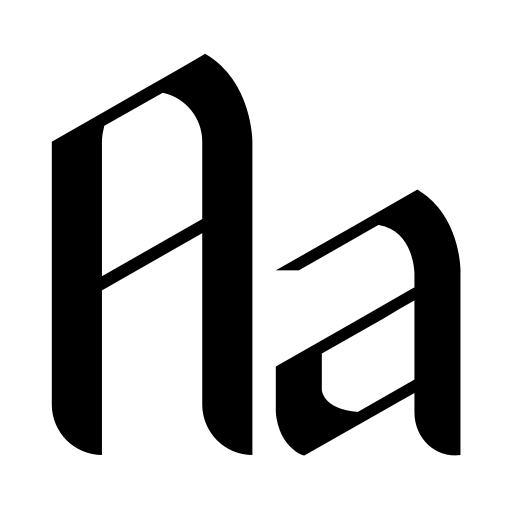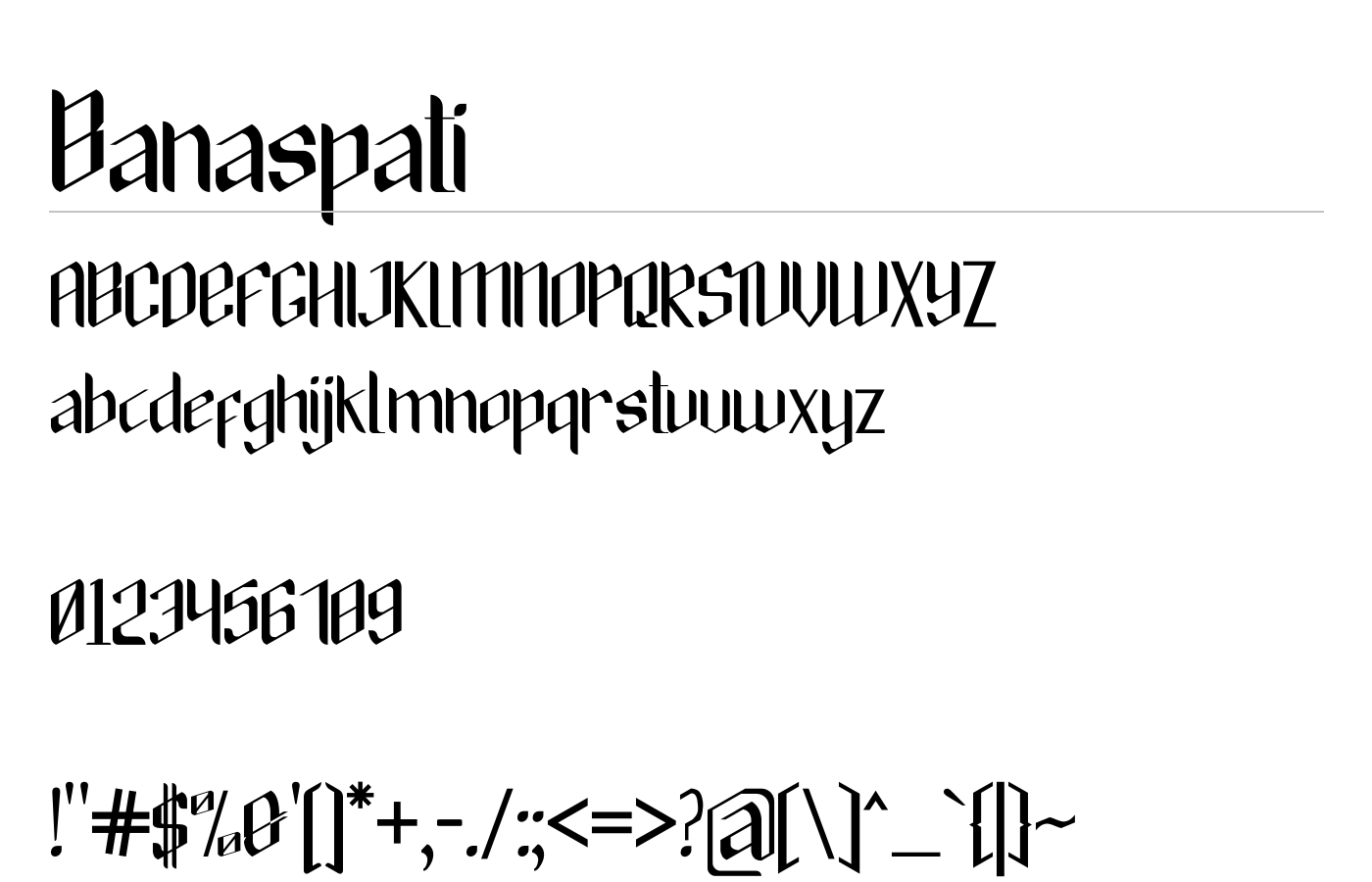
Banaspati is a distinctive blackletter-style serif font characterized by its narrow, angular letterforms and high contrast between thick and thin strokes. Its sharp, geometric serifs and condensed structure give it a vintage yet modern gothic feel, making it ideal for dramatic headings, logos, or branding that seeks an edgy and sophisticated appearance. This font stands out in contexts where a bold, historical vibe combined with clear readability is desired.
Banaspati Font
About Banaspati Font
| Font family | Banaspati Font |
| Designer | Irfan Hidayat |